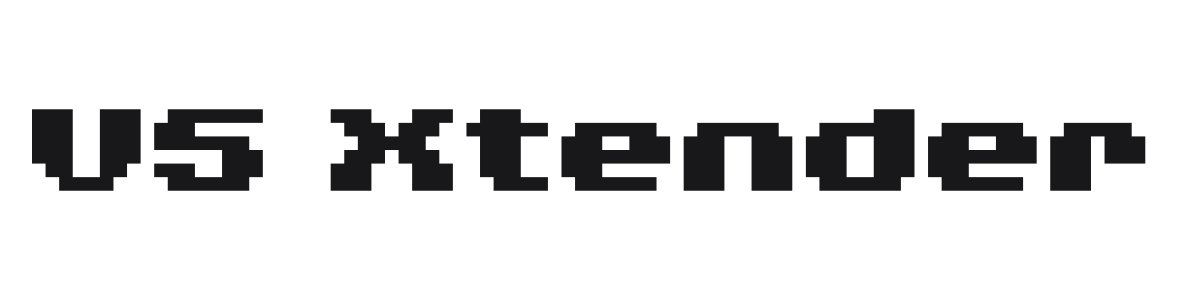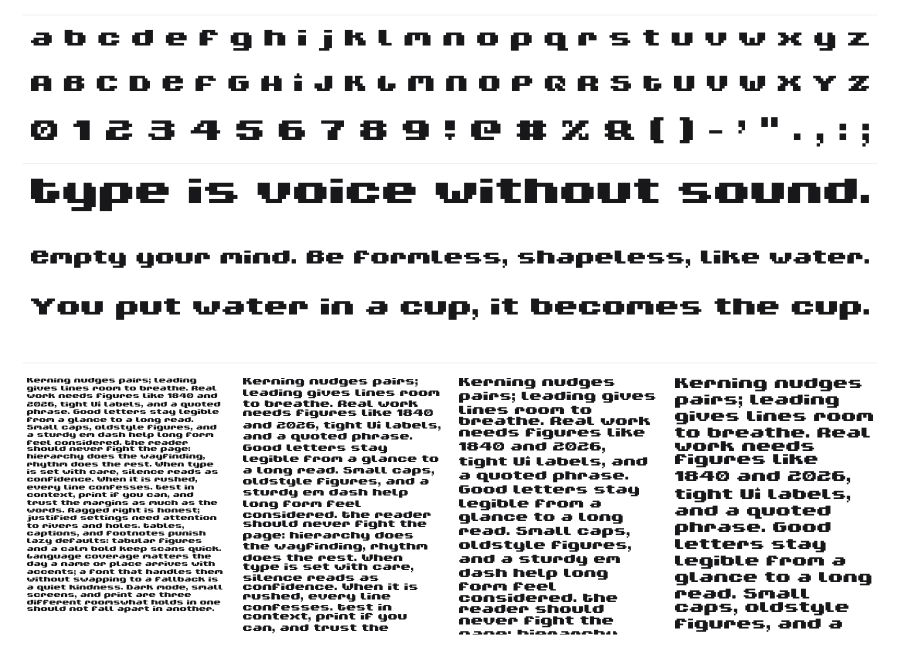
V5 Xtender
V5 Xtender is a heavy bitmap pixel font built entirely from square pixel blocks, designed for crisp screen rendering at exact point sizes. The bold, chunky construction gives it an unmistakable early-digital and arcade quality. Works best set in all-caps at 11pt or its multiples, with antialiasing off.